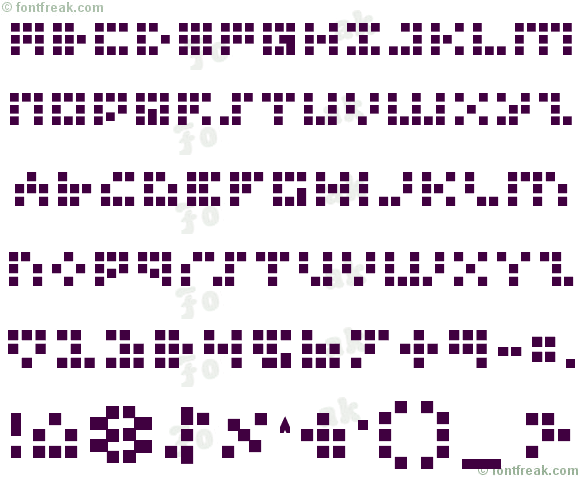
Iconian Light
Iconian Light, designed by Daniel Zadorozny in 2002, is a distinctive display font that captures attention with its unique character. This font belongs to the category of decorative typefaces, characterized by its modern, geometric shapes and bold, expanded forms. The stroke weight is consistent, giving it a solid presence, while the condensed style enhances its visual impact. The spacing between characters is carefully balanced, allowing for easy readability without sacrificing its artistic flair.
The Iconian Light font features a minimalist aesthetic, making it ideal for a variety of creative applications. It excels in use cases such as movie posters, where its boldness can convey drama and excitement. It also performs well in graphic design projects, such as branding materials or event flyers, where a strong visual statement is essential. Additionally, small business owners can utilize this font for eye-catching signage and advertisements, ensuring they stand out in a crowded marketplace. Content creators will find it suitable for digital media, including social media graphics and websites, where a stylish yet legible font can enhance overall engagement.
The target audience for Iconian Light primarily includes graphic designers, small business owners, and content creators looking for a unique typeface that elevates their projects. The font’s ability to blend modernity with artistic flair makes it an appealing choice across various design disciplines.
What sets the Iconian Light font apart is its versatility and striking visual appeal. The combination of its geometric forms and clean lines creates a contemporary look that is both functional and aesthetically pleasing. For those interested in enhancing their design projects, the Iconian Light font free download offers an excellent opportunity to incorporate a standout typeface into their work.